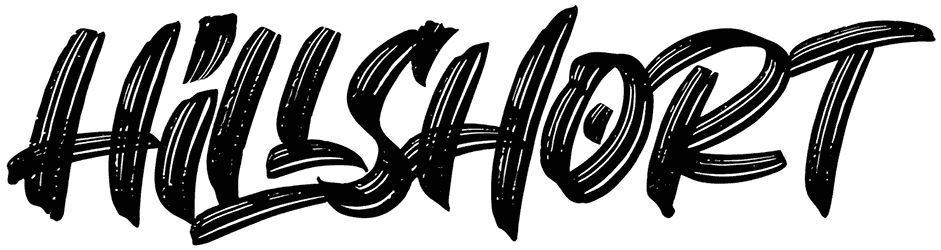
Hillshort Font
Sometimes a script font, such as Hillshort, that presents the sweet feeling of a painting on the canvas would be ideal for artists to design posters, brochures, book covers, logos, and web pages. Aside from the lack of lowercase letters, you can take advantage of this brush font for adding a dramatic touch to your graphic content by conveying a sense of dreaminess, dynamism, and sympathy.